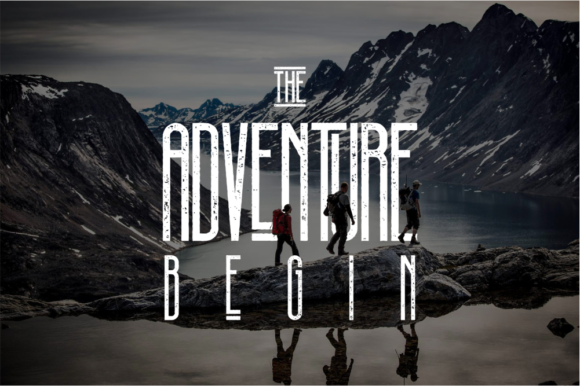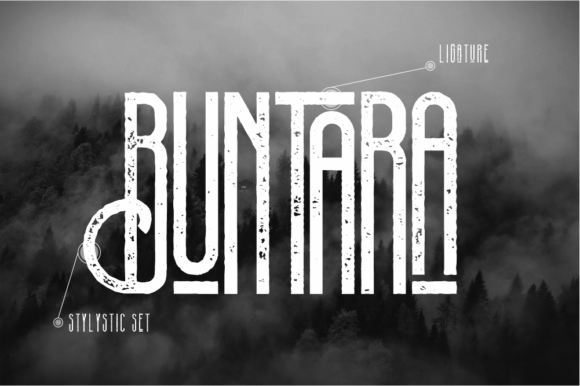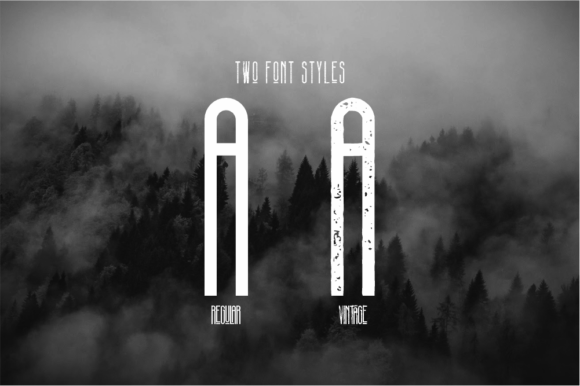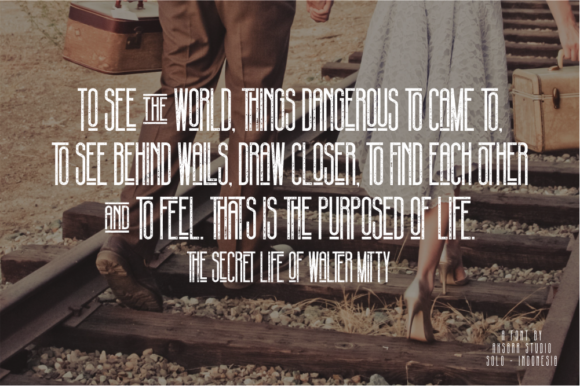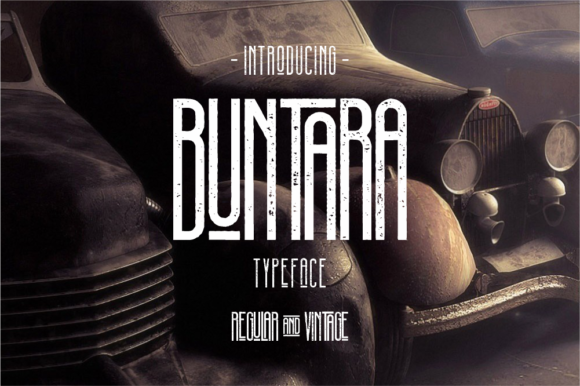
Buntara Font: Elevate Your Designs with a Cool, Brushed, and Rough Textured Display Font
In the world of design, fonts play a crucial role in conveying messages, evoking emotions, and creating visual identities. For designers and crafters looking for a unique and versatile font to elevate their projects, Buntara Font is an excellent choice. This cool, brushed, and rough textured display font is perfect for a wide range of applications, from logos and t-shirt printing to creative products and more.
What is Buntara Font?
Buntara Font is a distinctive display font characterized by its rough, brushed texture and cool, laid-back aesthetic. Its unique texture gives it a hand-crafted feel, making it perfect for designs that require a personal touch. The font’s versatility and legibility make it suitable for various design projects, from bold headlines to creative product labels.
Key Features of Buntara Font
• Brushed Texture: The font’s brushed texture gives it a rough, organic feel that adds a touch of personality to any design.
• Cool and Laid-Back Aesthetic: Buntara Font’s cool and laid-back vibe makes it perfect for designs that require a relaxed, casual feel.
• Versatile: The font is suitable for a wide range of applications, from logos and t-shirt printing to creative products and more.
• Legible: Despite its textured appearance, Buntara Font remains highly legible, making it perfect for use in headlines, titles, and other display text.
Use Cases for Buntara Font
Buntara Font is an excellent choice for various design projects, including:
• Logo Design: The font’s unique texture and cool aesthetic make it perfect for creating memorable and eye-catching logos.
• T-Shirt Printing: Buntara Font’s rough, brushed texture looks great on t-shirts, making it a popular choice for custom apparel.
• Creative Products: The font’s versatility and legibility make it suitable for use on creative products, such as stickers, posters, and more.
• Branding Projects: Buntara Font can be used to create a consistent visual identity across various branding materials, from business cards to billboards.
Tips for Using Buntara Font
To get the most out of Buntara Font, consider the following tips:
• Use it as a Display Font: Buntara Font is designed to make a statement, so use it as a display font to grab attention and create visual interest.
• Experiment with Colors: The font’s rough texture looks great in a variety of colors, so don’t be afraid to experiment and find the perfect hue for your design.
• Pair it with Other Fonts: Buntara Font can be paired with other fonts to create a unique and visually appealing typography combination.
Buntara Font is a versatile and stylish display font that can elevate any design project. Its unique brushed texture, cool aesthetic, and legibility make it perfect for a wide range of applications, from logos and t-shirt printing to creative products and more. Whether you’re a designer or crafter, Buntara Font is an excellent choice for adding a personal touch to your designs.